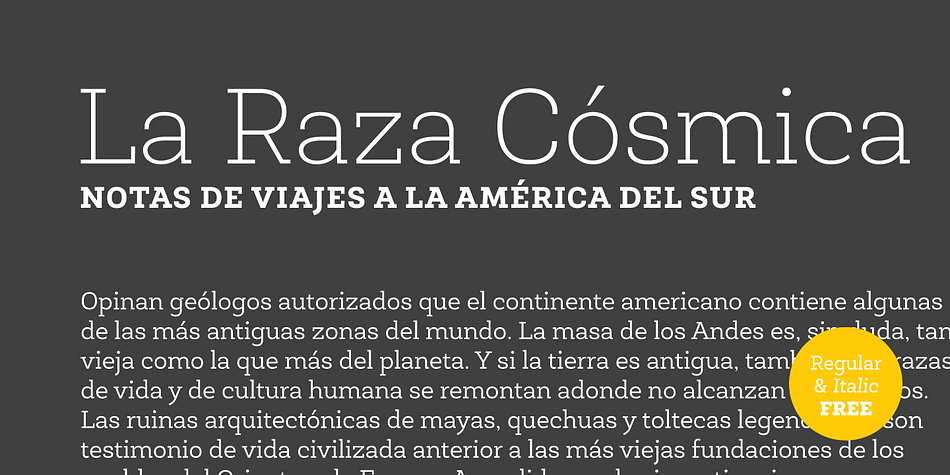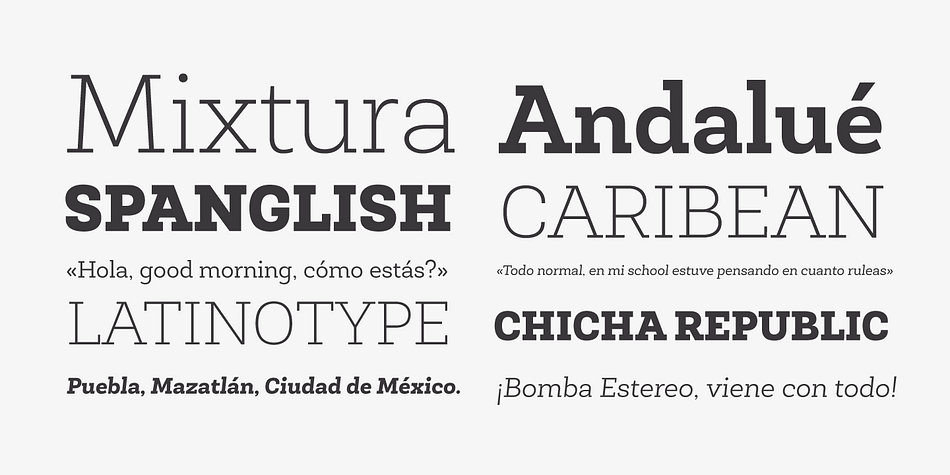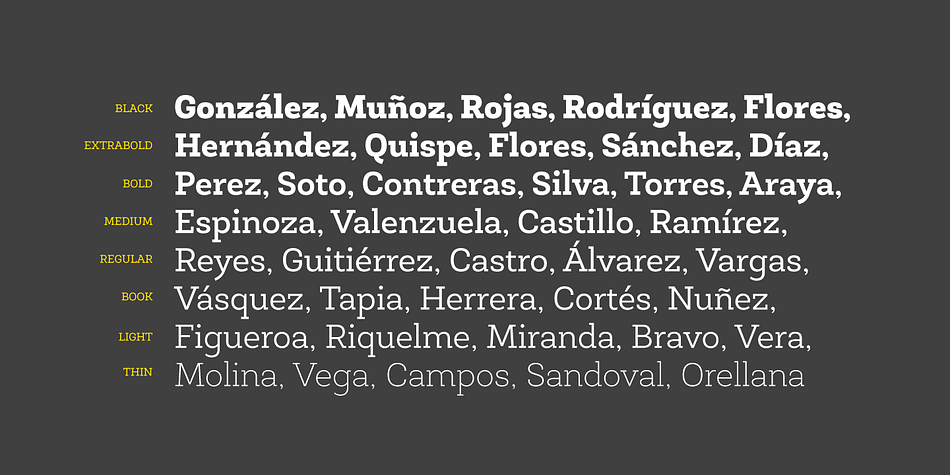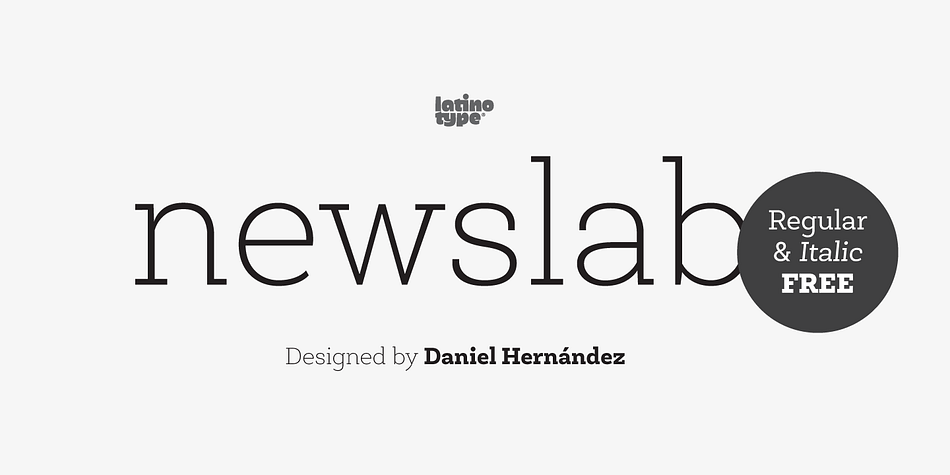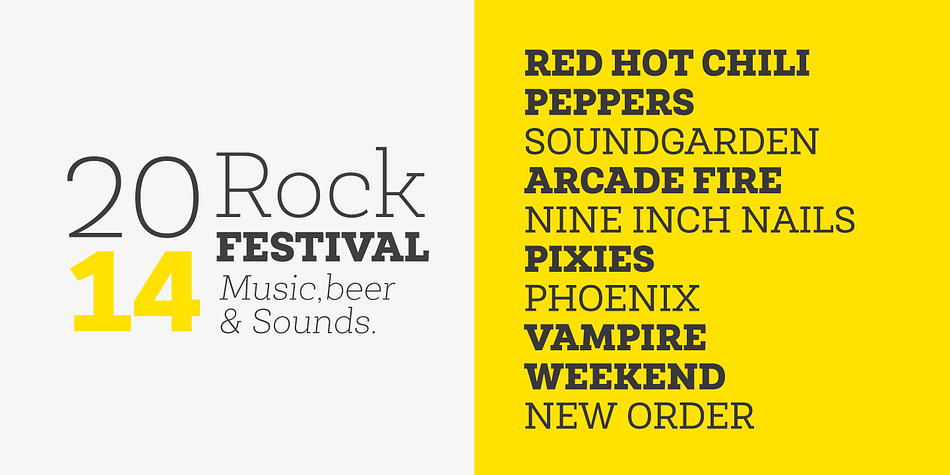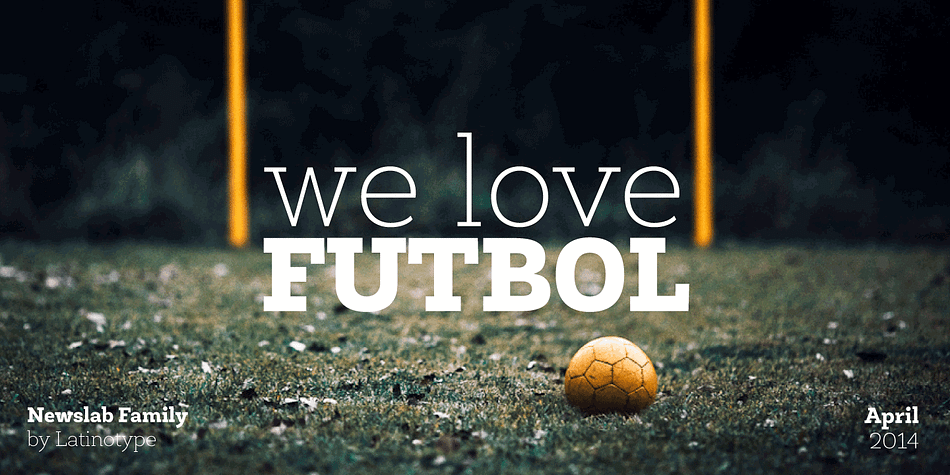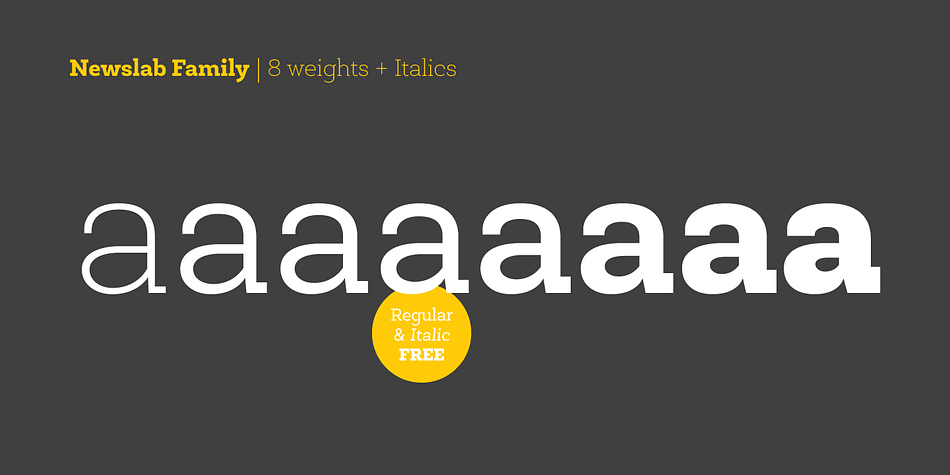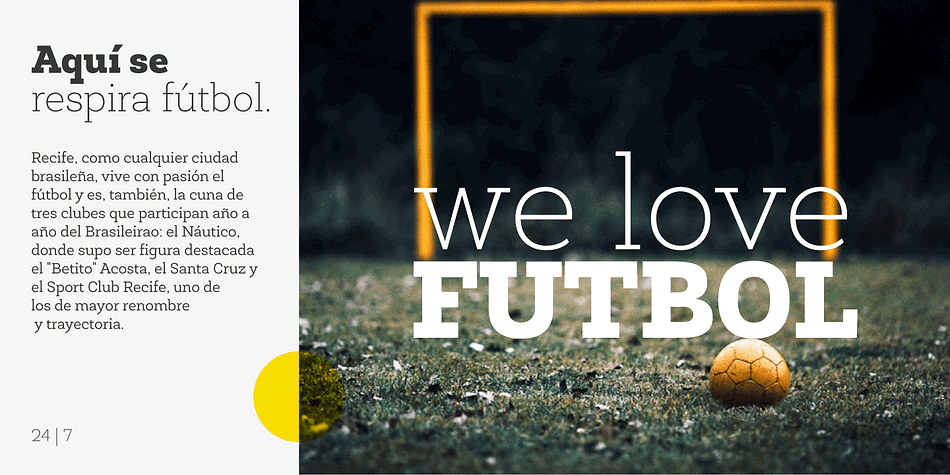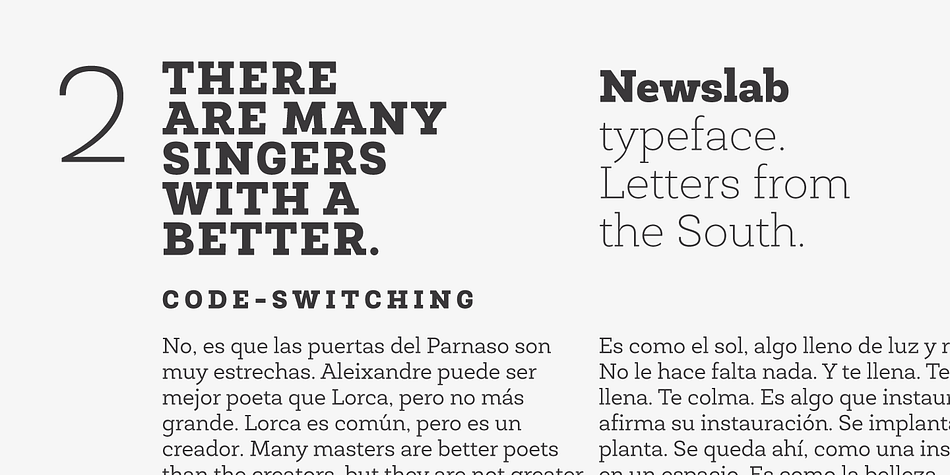
Newslab is a slab serif font family. This typeface has sixteen styles and was published by Latinotype.
Newslab is a slab serif font—designed by Daniel Hernández—which is the result of the combination of three different typefaces: Andes, Sánchez, and Roble. Harmony among every feature of the typefaces makes Newslab a neutral but imposing font.
The Newslab font family consists of 16 variants and 8 weights, with italics. Well-suited for editorial projects, logotypes, posters, etc. Regular and italic variants are available for free.